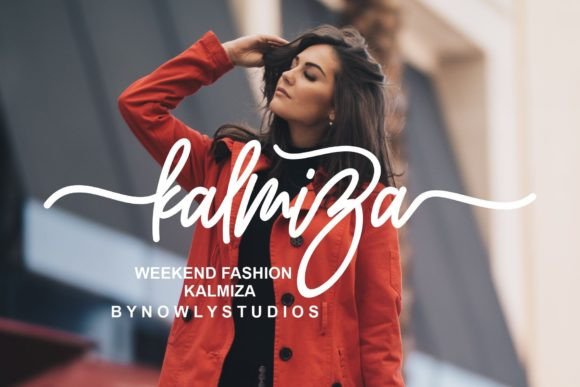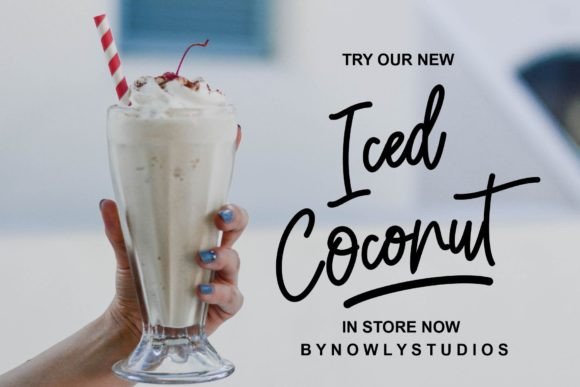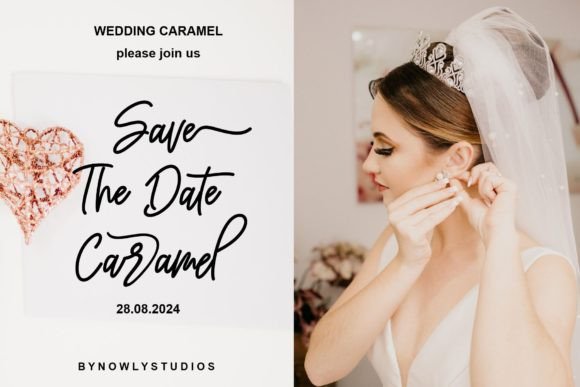
Ameliany Signature Font
Ameliany Signature is a monoline script font with a cursive style, as many characters are smoothly connected.This lovely typeface is great for designers who are seeking a natural and authentic style in their creations! This gorgeous font includes all lowercase and uppercase characters, numbers, punctuation, alternate, an array of standard ligatures, and a selection of international characters as well.This font is PUA encoded which means you can access all of the amazing glyphs and ligatures with ease!